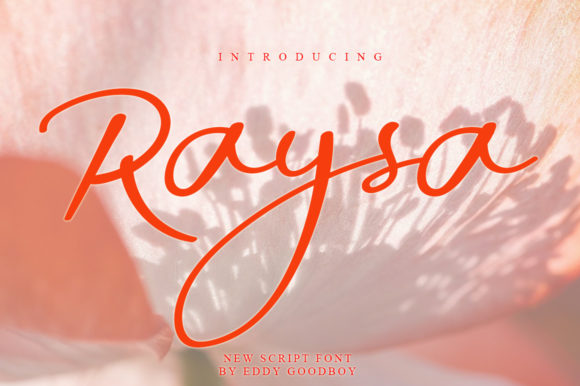
Raysa Font: Elevating Web Design with Authentic Script
I was halfway through a redesign for a boutique lifestyle brand when I hit that familiar wall. The layout was clean, the whitespace was generous, and the photography was stunning, but the hero section felt cold. It lacked soul. I needed a typeface that could bridge the gap between professional polish and human warmth. That is when I started testing Raysa, a stunning handwritten font designed with natural movements for an authentic effect.
As a web designer, I am always cautious about introducing script fonts into digital interfaces. They can easily become illegible on mobile devices or clash with structured grid systems. However, Raysa is different. It does not feel like a rigid, computer-generated imitation of handwriting. Instead, it captures the fluidity of a real pen moving across paper. Adding it to my most exquisite projects made the entire interface come alive, transforming a static page into an inviting digital experience.
Why Authentic Movement Matters in Digital Layouts
In modern web design, users scan content rapidly. We rely heavily on visual hierarchy to guide their eyes. When every element is perfectly geometric, the eye has no place to rest or linger. A high-quality script font like Raysa introduces organic variation. The slight irregularities in stroke width and letter connection create a rhythm that feels personal and curated.
This authenticity builds trust. In an era of AI-generated content and template-based websites, brands are striving for distinctiveness. Using a premium font with genuine character signals attention to detail. Whether you are building a coaching website, a portfolio homepage, or a product landing page, the choice of typography speaks volumes before the user reads a single word. Raysa offers that immediate emotional connection, making it an excellent choice for brands that value craftsmanship and personal touch.
Strategic Placement for Maximum Impact
While Raysa is visually striking, it is not a one-size-fits-all solution for body copy. Its strength lies in its role as a display font. During my testing phase, I found it performed best in specific areas of the layout where brevity and impact are key.
I avoided using it for long paragraphs or complex navigation menus. The intricate details that make Raysa beautiful can reduce readability at smaller sizes. By reserving it for decorative accents and short statements, I preserved its legibility and ensured it remained a highlight rather than a hurdle.
Readability and Responsive Design Considerations
One of the biggest challenges with handwritten fonts is ensuring they remain readable across various screen sizes. I tested Raysa extensively on mobile viewports, tablets, and desktop monitors. On larger screens, the natural movements of the letters are clear and delightful. On smaller mobile screens, however, spacing becomes critical.
To maintain clarity, I increased the letter-spacing slightly and ensured sufficient contrast against the background. When placing text over image banners, I used subtle overlays or shadows to prevent the thin strokes from getting lost in busy textures. For dark backgrounds, I opted for a pure white or off-white color to maximize visibility. These small adjustments are essential for maintaining a polished online brand experience.
Fast-loading visual content is also a priority. Since Raysa is a web-ready font, it integrates smoothly without causing significant layout shifts or loading delays, provided it is properly optimized. This ensures that the aesthetic enhancement does not come at the cost of performance, a crucial balance in modern UX design.
Mastering Font Pairing for Balanced Interfaces
A beautiful script font needs a supportive partner. Pairing is where the magic happens in web design. If you pair two decorative fonts, the result is chaotic. If you pair two neutral fonts, the result is boring. Raysa shines when paired with clean, structured typefaces.
In my project, I paired Raysa with a modern sans serif font for the body copy. The simplicity of the sans serif allowed the complexity of the script to stand out without competing for attention. This combination created a balanced visual hierarchy: the script drew the eye, and the sans serif delivered the information clearly.
Alternatively, for a more editorial or luxurious feel, you might consider pairing Raysa with a classic serif font. This approach works well for fashion blogs, wedding portfolios, or high-end e-commerce stores. The serif adds a layer of tradition and authority, while Raysa injects personality and modern flair. Experimenting with these combinations allows you to tailor the mood of your site precisely to your brand identity.